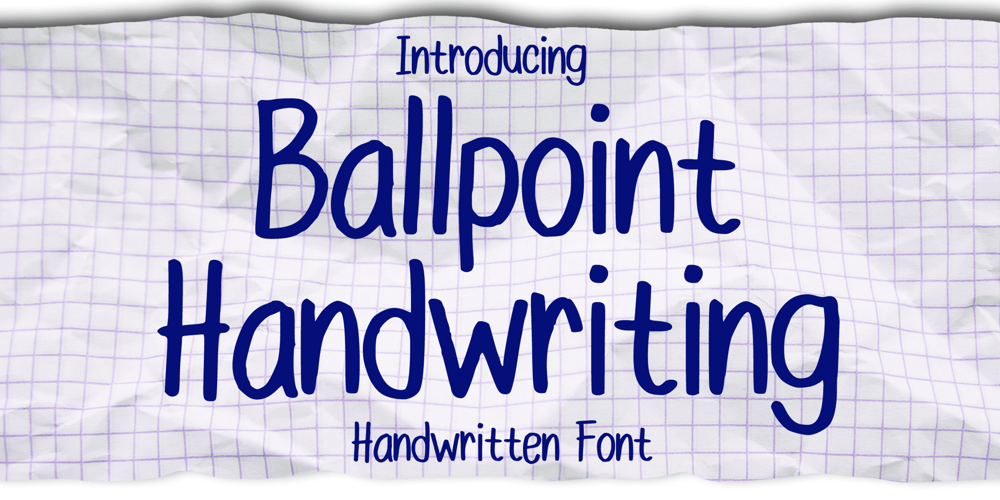
Ballpoint Handwriting
Ballpoint Handwriting font
Ballpoint Handwriting Font Family was designed by Gabriel Valentinus and published by Mvmet. Ballpoint Handwriting contains 1 styles and family package options. Ballpoint Handwriting is a fun daily use and suitable for everyday use pen font. It will elevate a wide range of design projects to the highest level. You can use this font for many design ideas such as stickers, t-shirt designs, amazing logo designs, magazine or book covers, comics, cartoon drawings, and many more. This font will add a super cool touch to your designs!